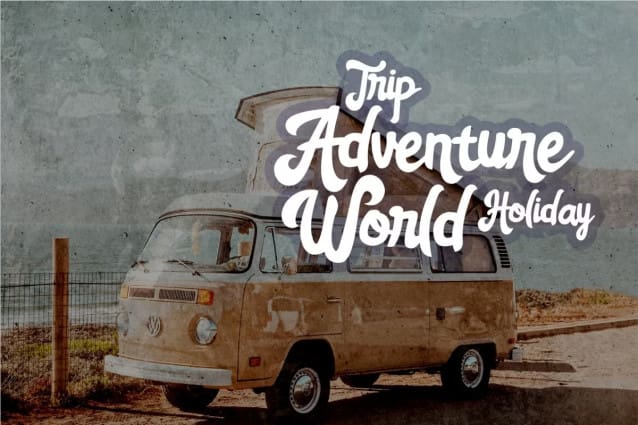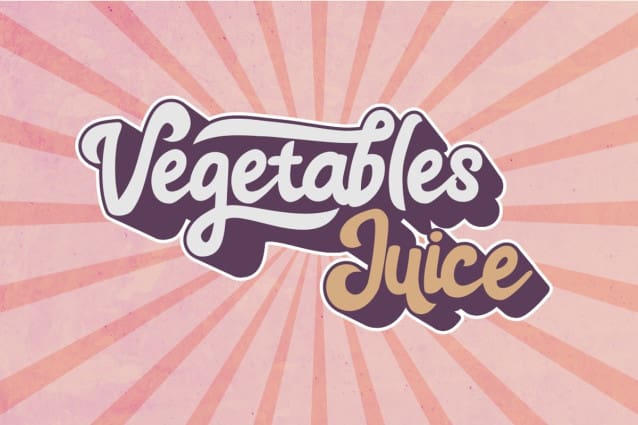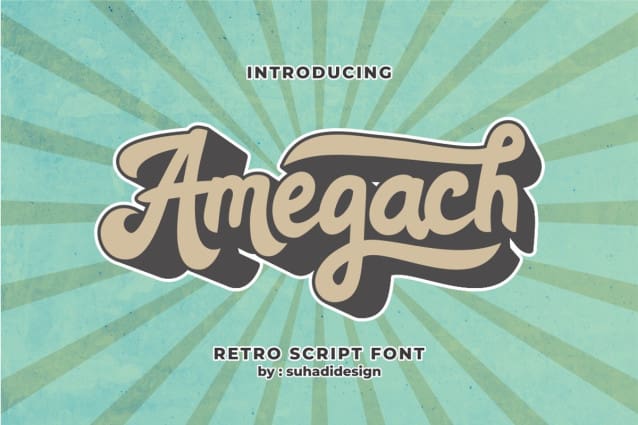
Amegach Retro Font
Amegach Retro Font is a fun and very popular retro script font, coming in a modern style hoping to be accepted by the market. We keep this font looking elegant, classy, ​​easy to read, stylish, attractive and easy to use. Amegach Font is a great choice for vintage, retro designs, logos, food menus, brand names, branding, brands, quotes, album covers, and other projects. The Amegach font is here to take your design to the next level.